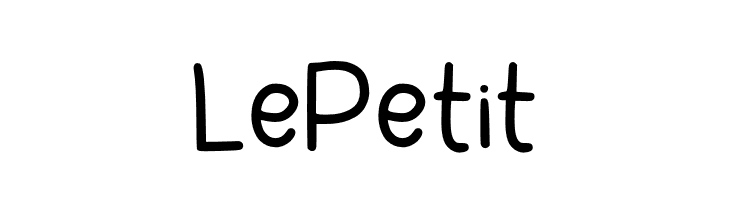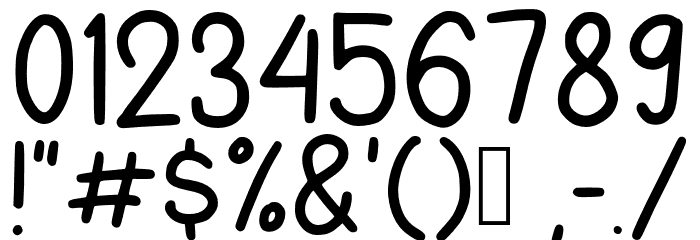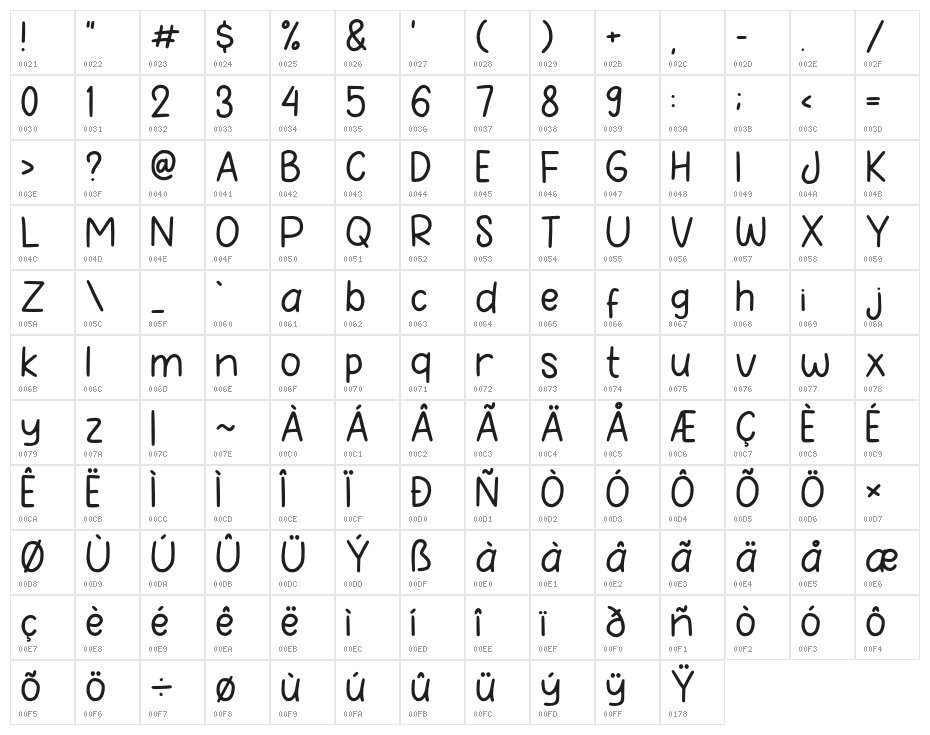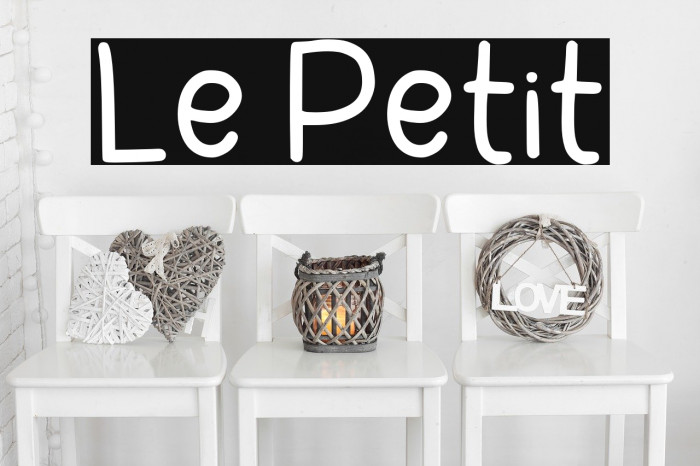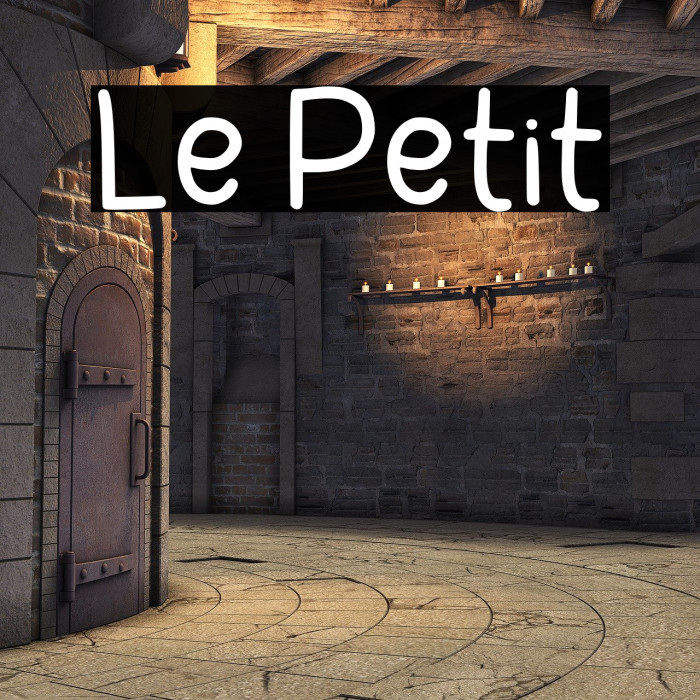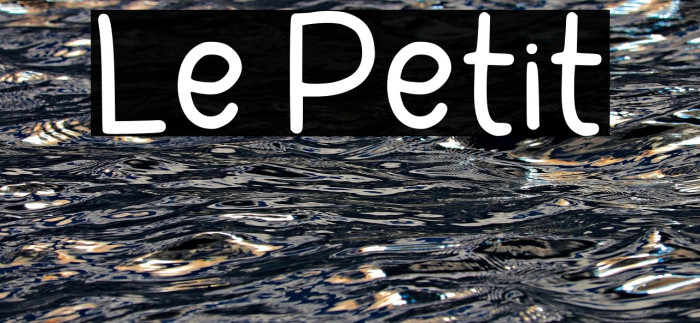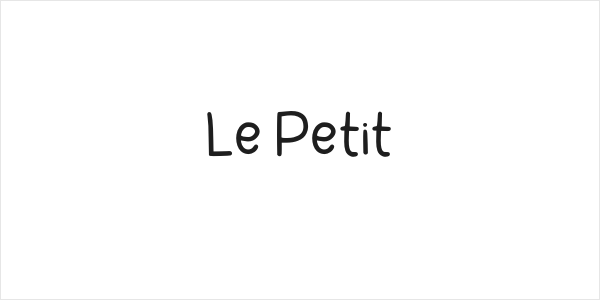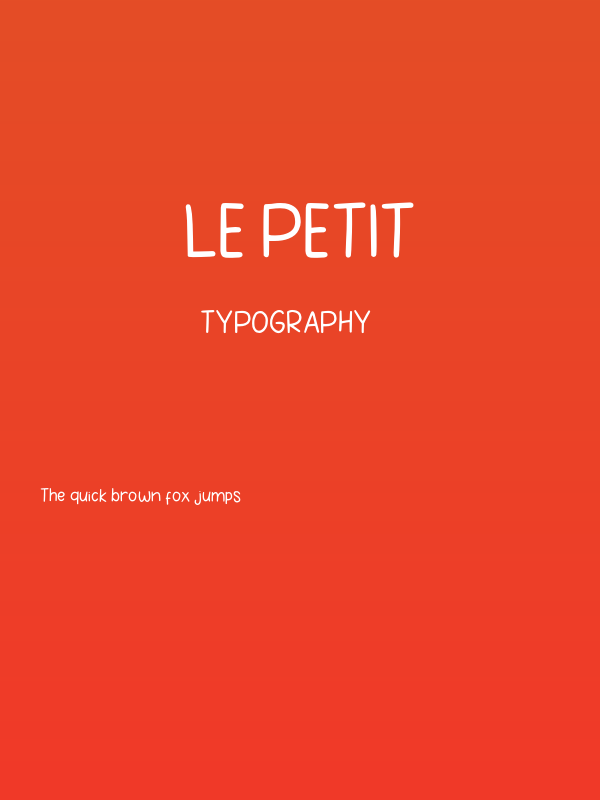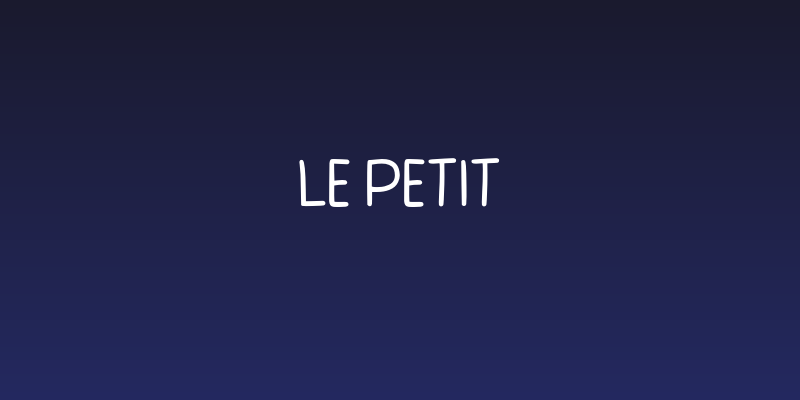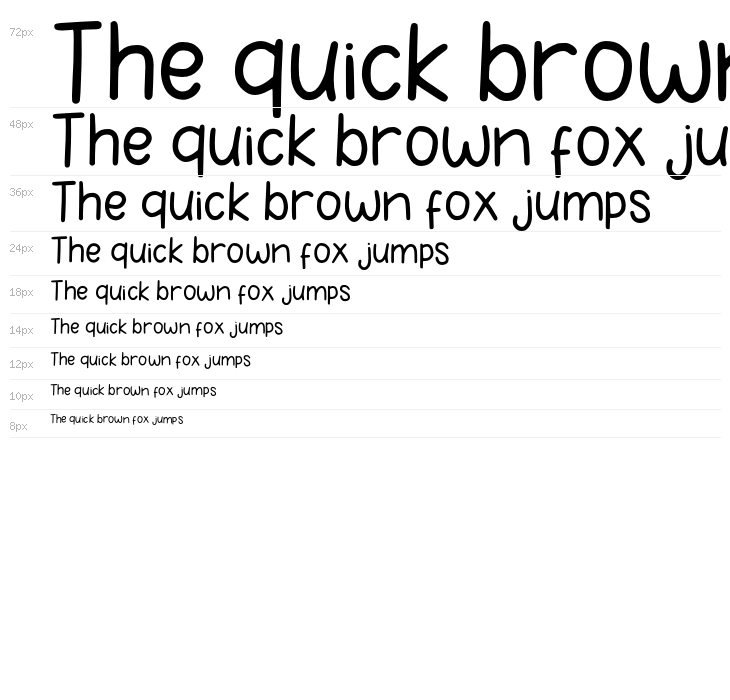
Le Petit Font
Le Petit Description
This playful and whimsical font features rounded, hand-drawn characters that exude a sense of friendliness and approachability. The letters have a consistent stroke width, giving them a uniform appearance, while the slightly irregular shapes add a touch of charm and personality. The uppercase and lowercase letters are well-balanced, with a slight tilt that enhances the casual, informal style. The numerals and special characters maintain the same playful aesthetic, making this font versatile for various creative projects. Its legibility is high, making it suitable for both digital and print media.
| Proposed Projects | Ideal for children's books, playful branding, greeting cards, and casual invitations. |